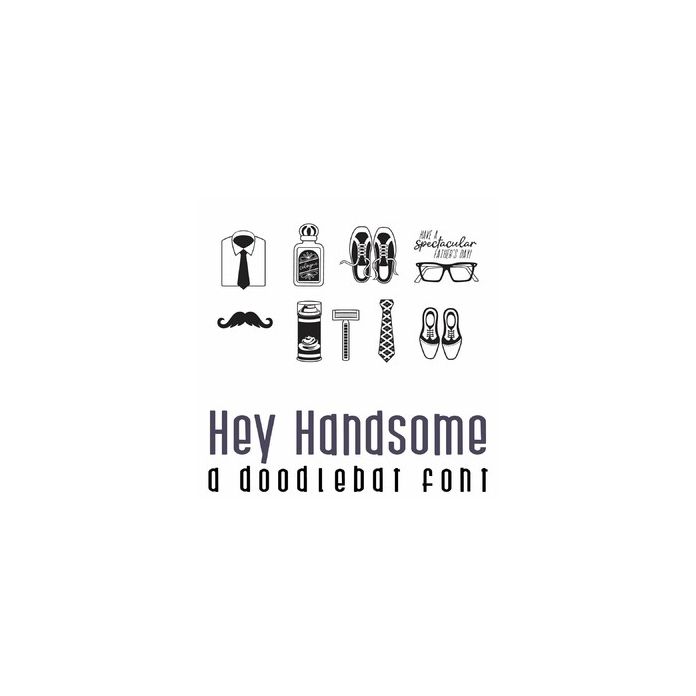
Hey Handsome Doodlebat Font
This doodlebat font features 26 handsome Dad items, perfect for Father's Day, crafts, gifts, planner stickers, scrapbook pages and more!